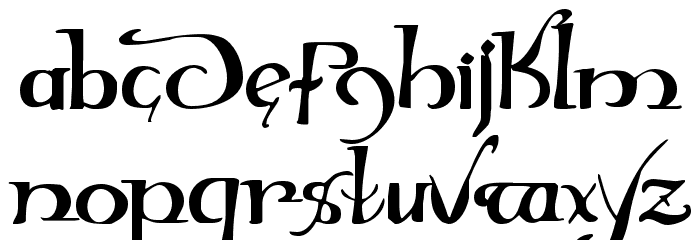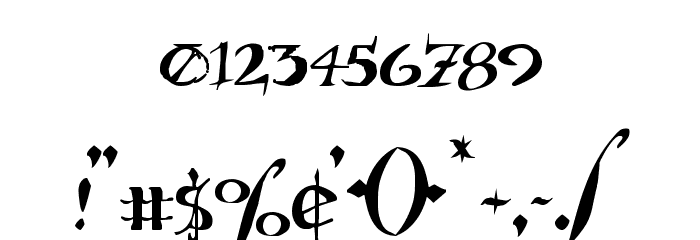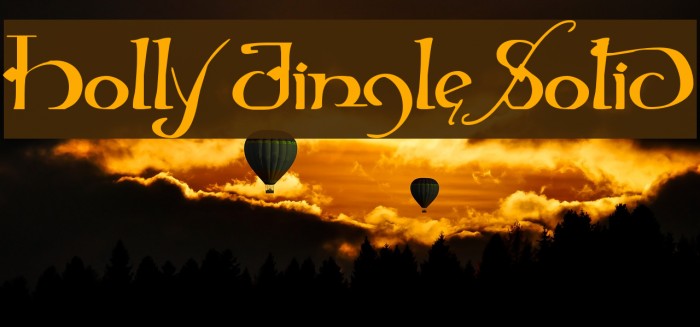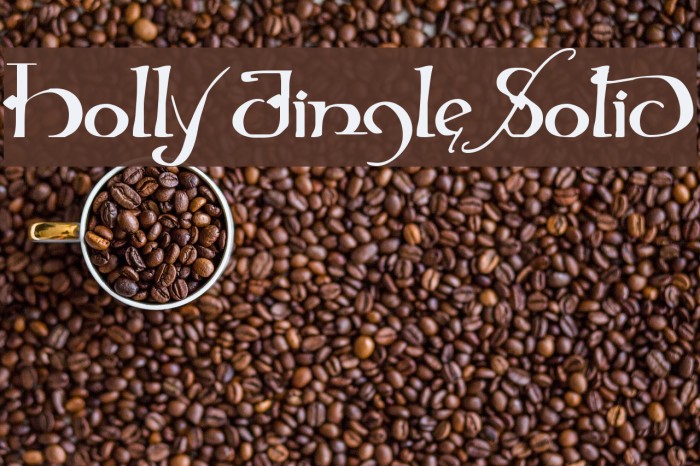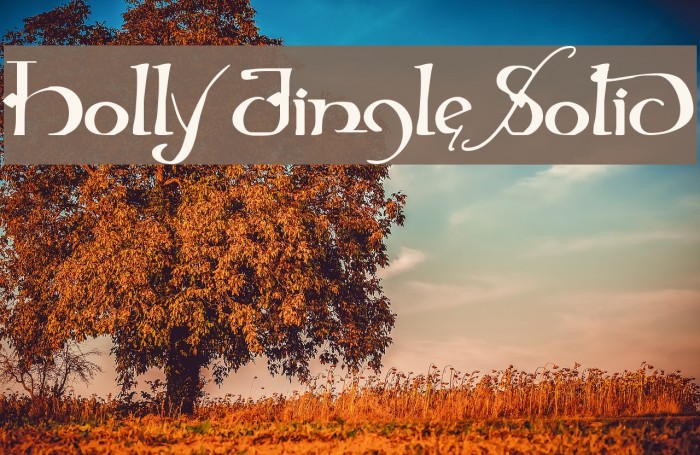
Holly Jingle Solid Font
This font features an intricate and decorative style, characterized by its elaborate curves and flourishes. The uppercase letters are bold and ornate, with unique embellishments that give each character a distinct personality. The lowercase letters maintain the decorative theme, with flowing lines and artistic details. Numbers and special characters are equally stylized, making them stand out with their artistic flair. This font is ideal for creating a festive or whimsical atmosphere, perfect for holiday-themed projects or any design that requires a touch of elegance and creativity.
An ornate and decorative font with intricate curves and flourishes.
- Proposed Projects: Ideal for holiday cards, invitations, festive posters, and decorative branding.
- Use Case: Headlines, Logos, Decorative text